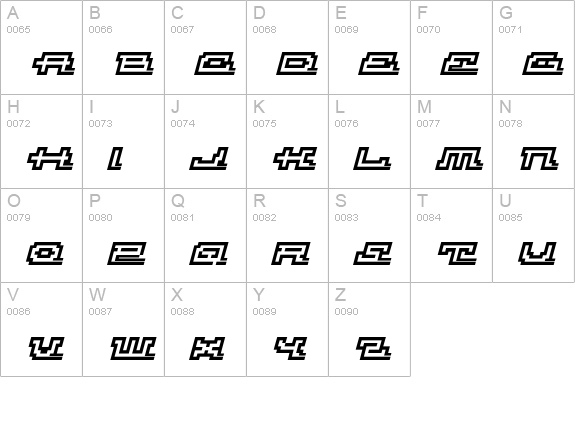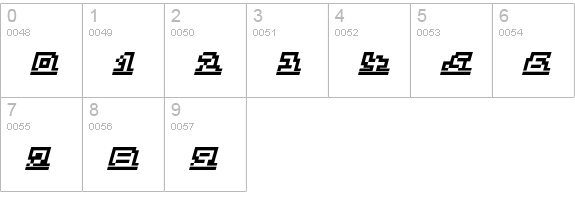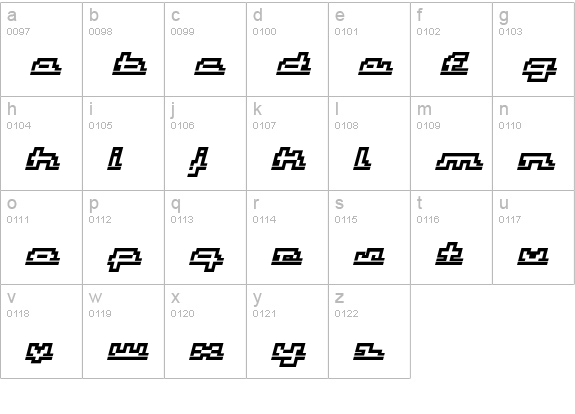
AtomiOutScrIta Font Details
AtomiOutScrIta is a stylish and modern font that will add a unique touch to your projects. This versatile font features a sleek design with sharp edges, making it perfect for a variety of creative applications. Whether you're designing a logo, poster, or website, AtomiOutScrIta will make your text stand out. The best part? AtomiOutScrIta is available for free download at FontsMarket.com. This means you can easily access this high-quality font without having to spend a dime. Don't miss out on the opportunity to enhance your designs with AtomiOutScrIta - download it today and let your creativity shine!